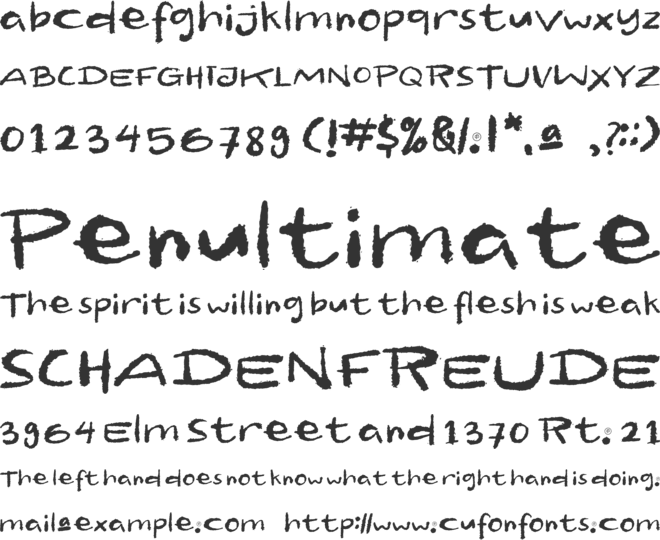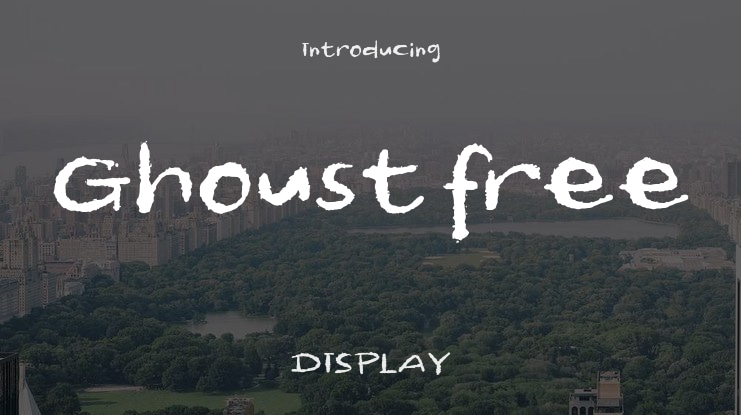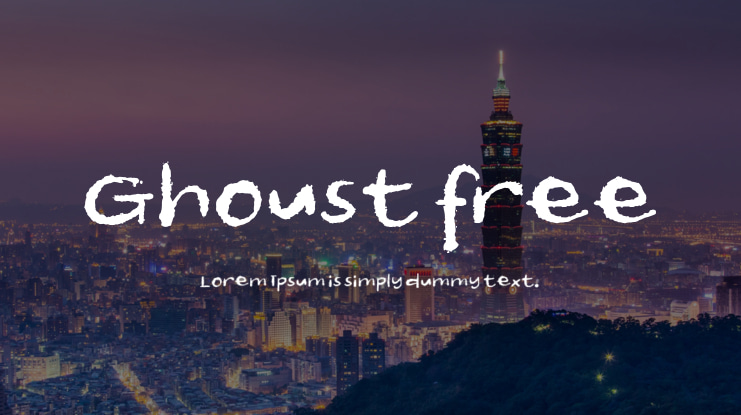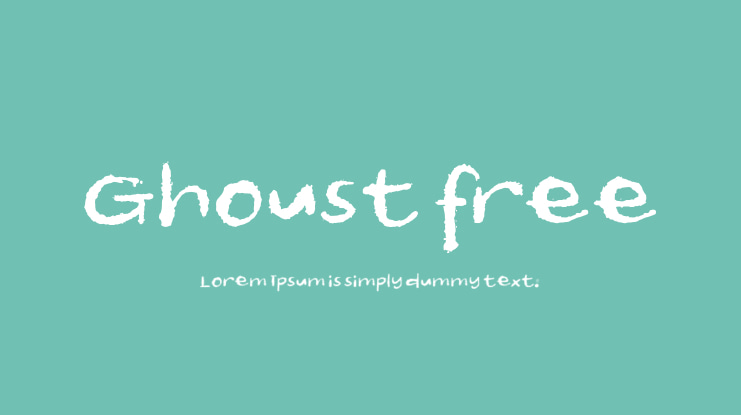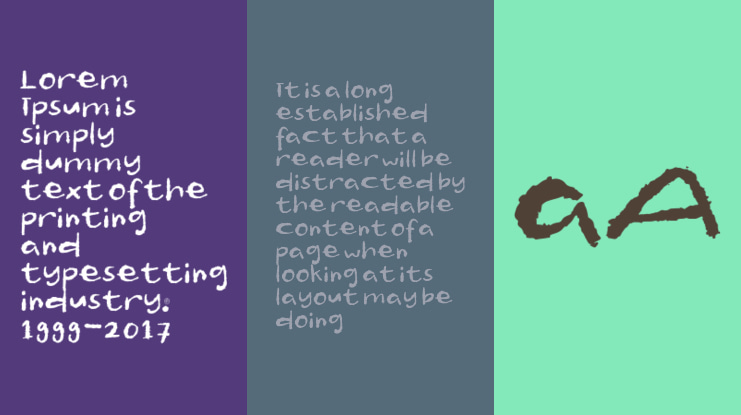
Ghoust free Font
Horror handwriting evokes a sense of unease and fear, characterized by jagged strokes, uneven lines, and erratic spacing that mimic the frantic scrawl of a disturbed mind. Letters appear scratched or clawed onto the page, as if written in haste or desperation. The ink may seem smeared or faded, giving the impression of being aged or tampered with by sinister forces. This imperfect, disjointed style creates tension, suggesting a hidden terror behind each word. Every letter feels alive, crawling across the page and drawing the reader into a haunting, chilling atmosphere of dread and impending doom.